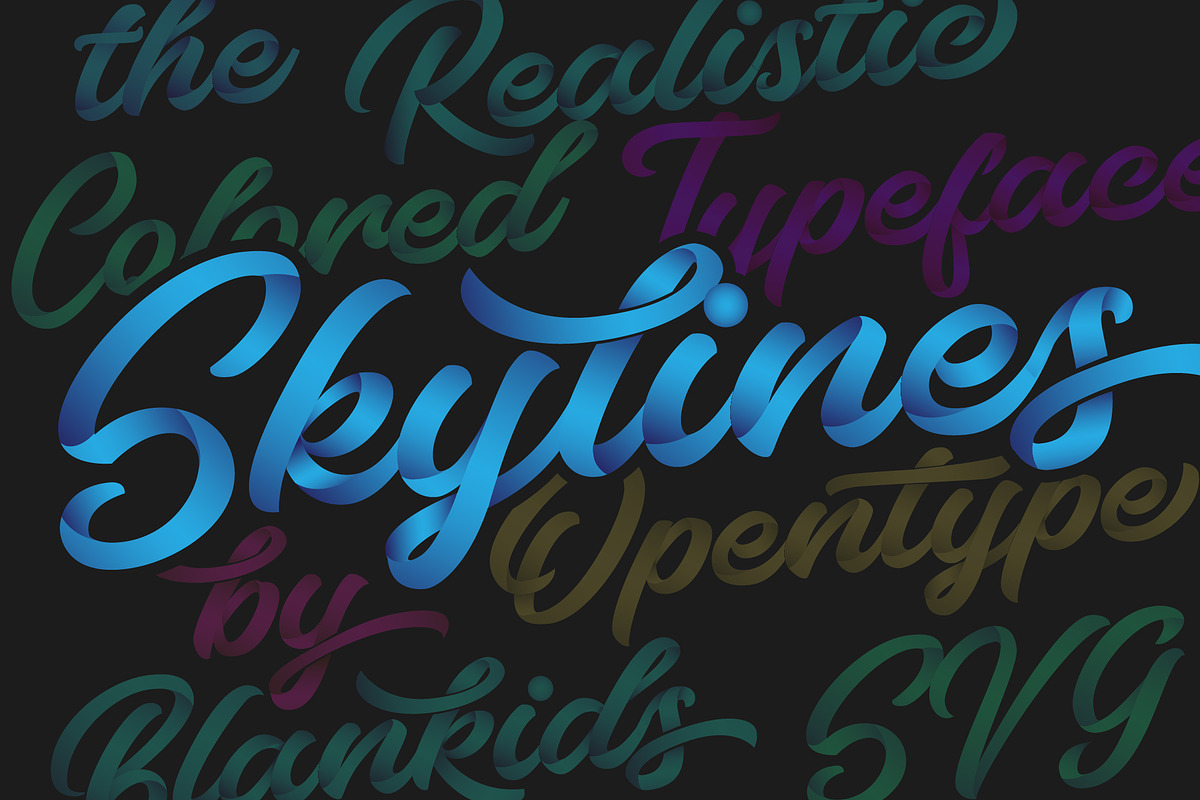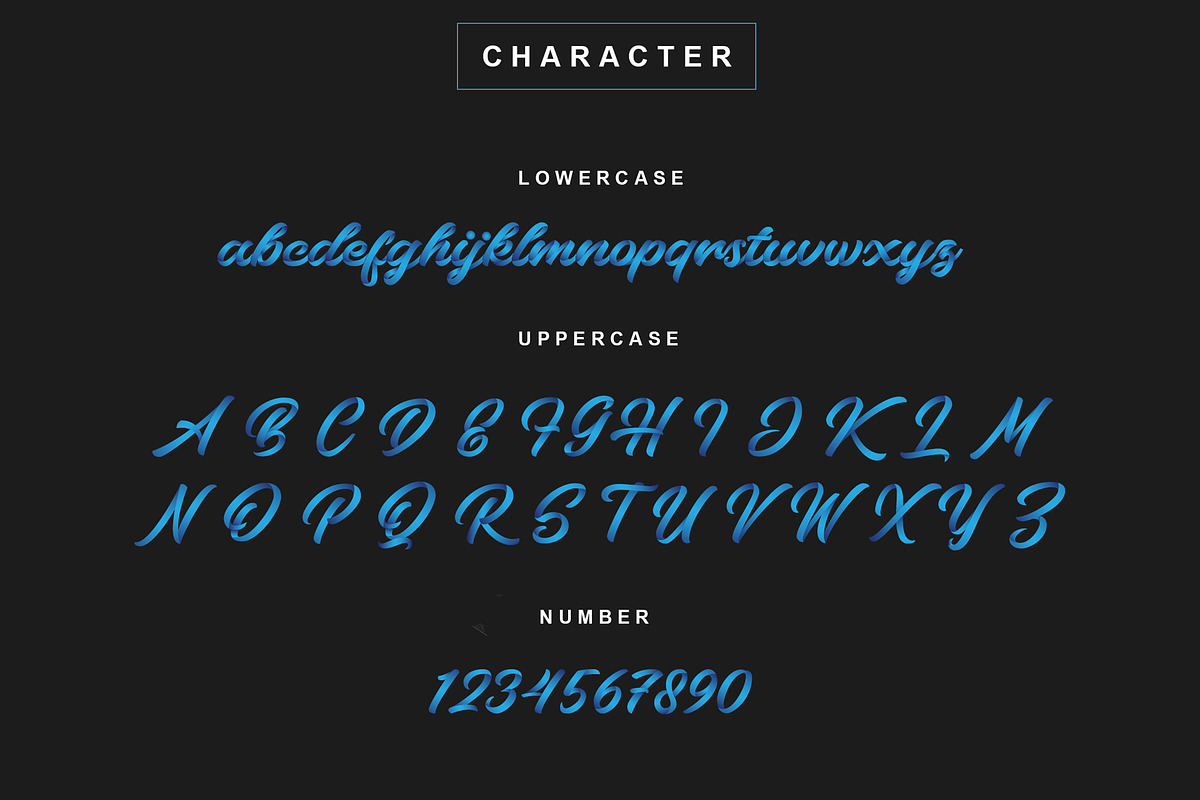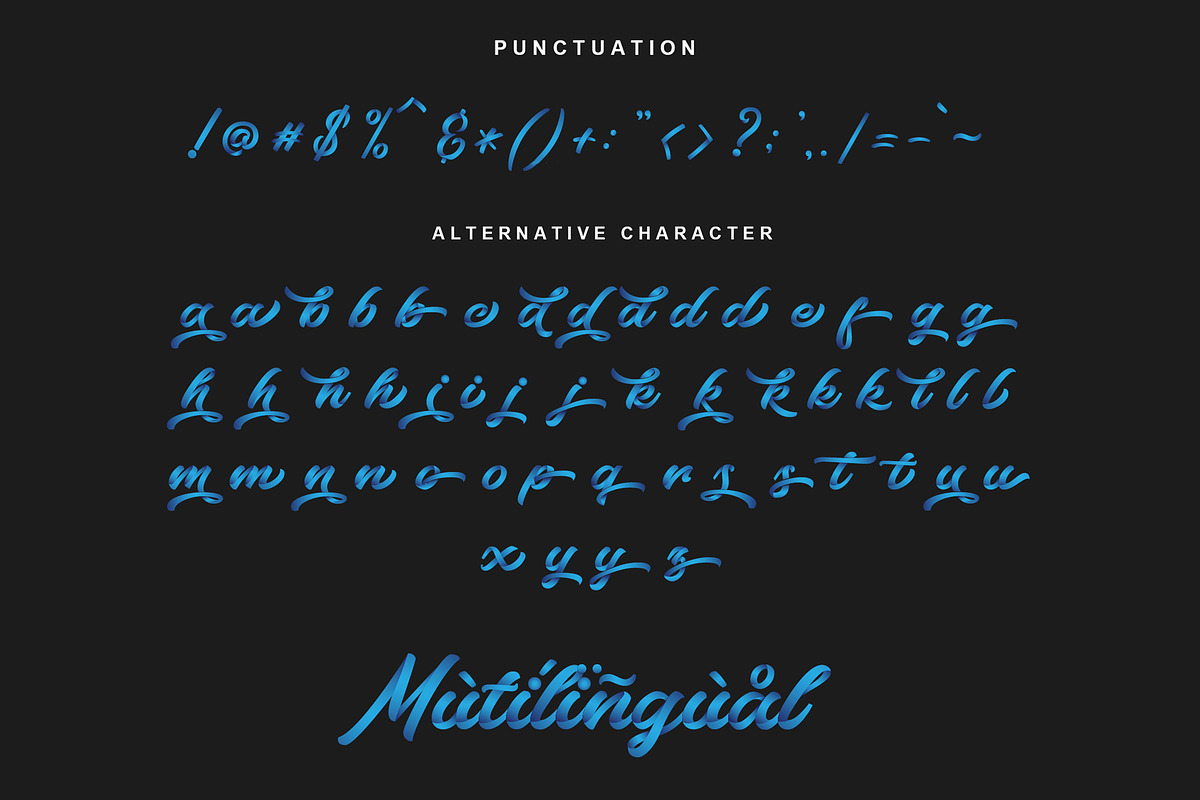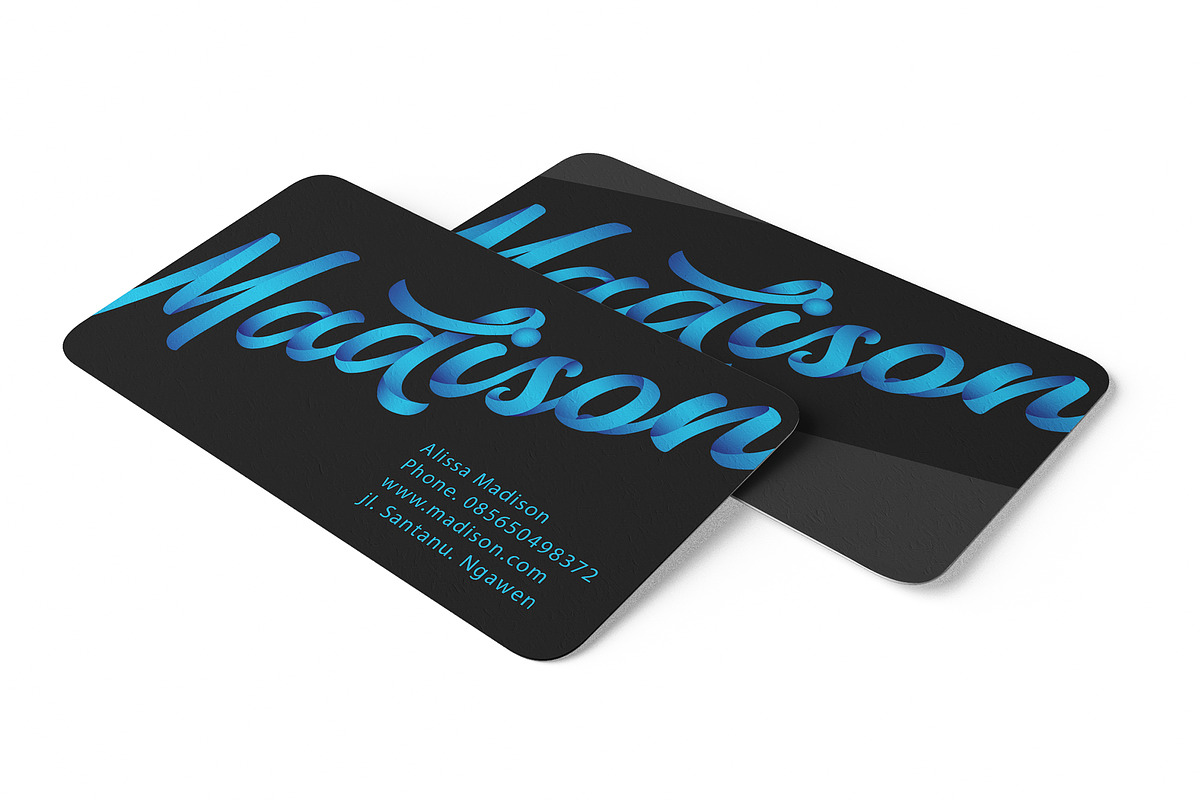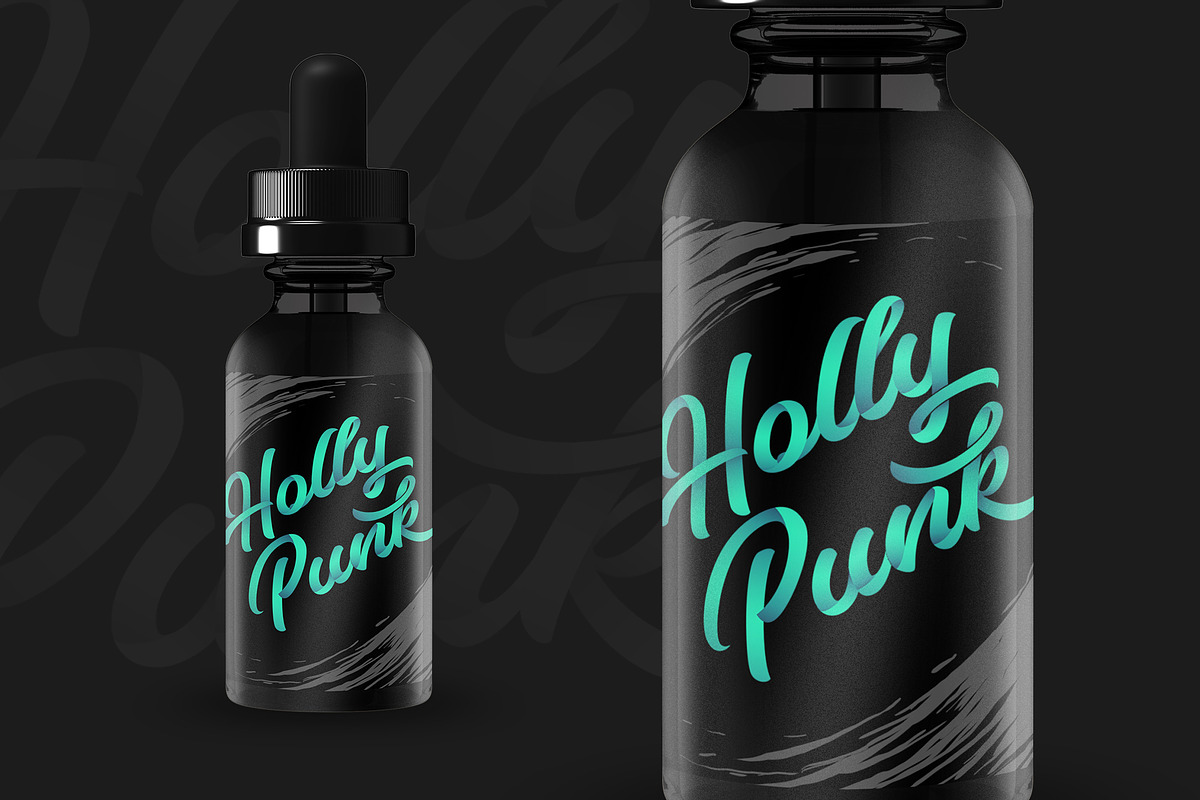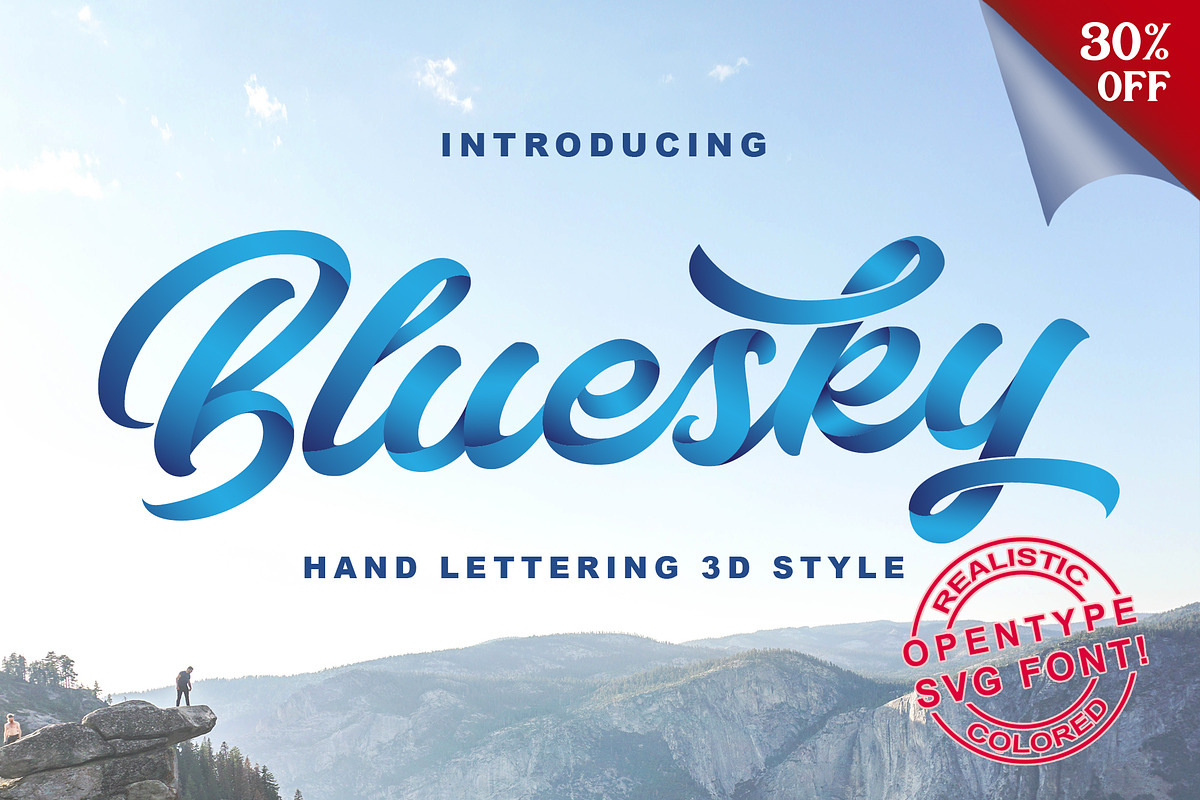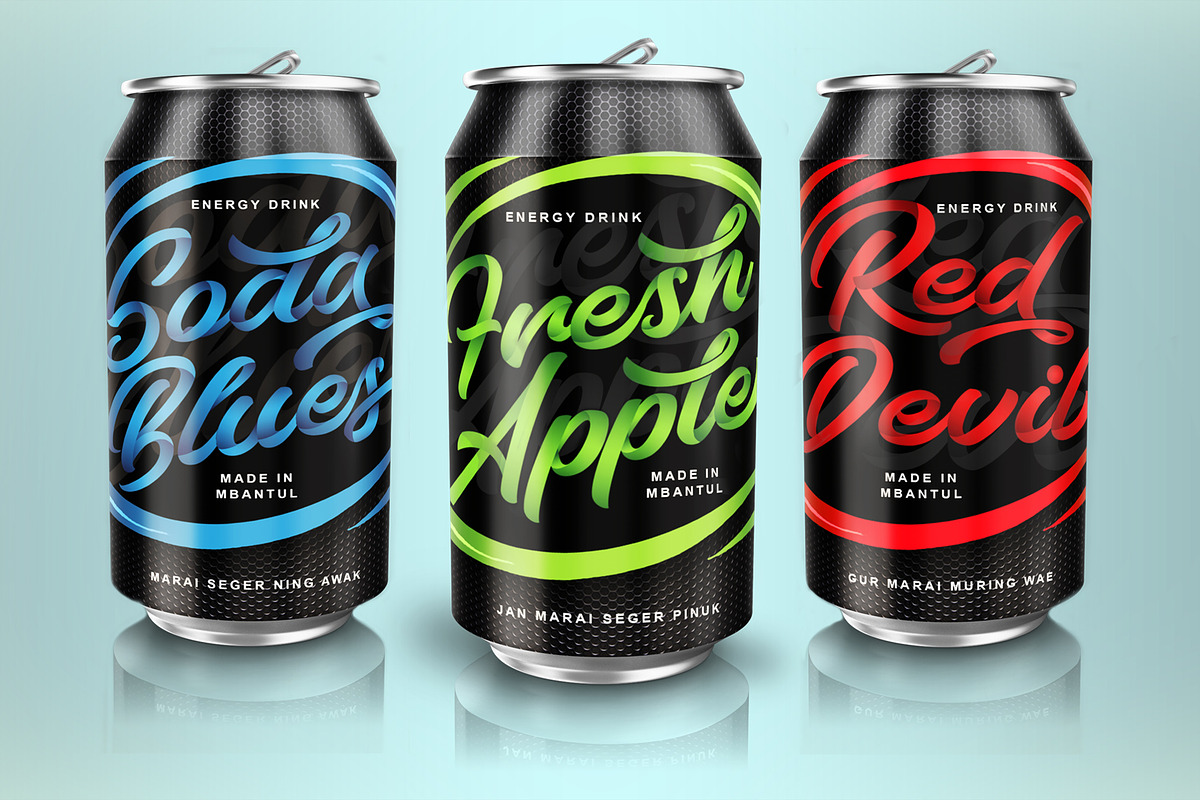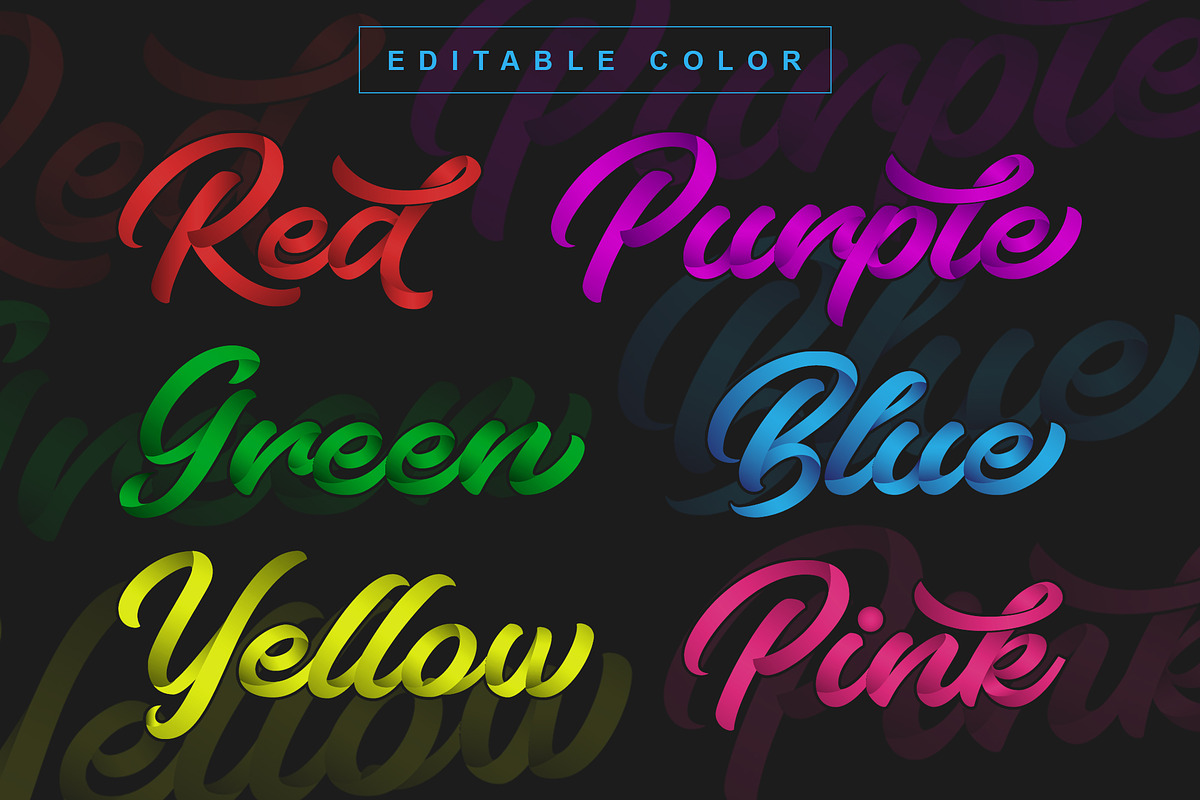
Bluesky OpentypeSVG Font
Hey guys, this is my new product called Bluesky OpentypeSVG Font!
After I know that there is a new trend font that is opentype SVG, I try to explore by making a font script with shadow detail that looks 3-D. I made this font include uppercase, lowercase, number, punctuation, alternative character and multilingual character. This font has basic blue color but you can change the color like a you want please see tutorial video to use this font very easy to use you just typing and change color like a you want :). Very recomended use to a logotype, display, title, packaging, headline, poster, Bussiness card and etc.
- I made this font include uppercase, lowercase, number, punctuation, alternative character and multilingual character.